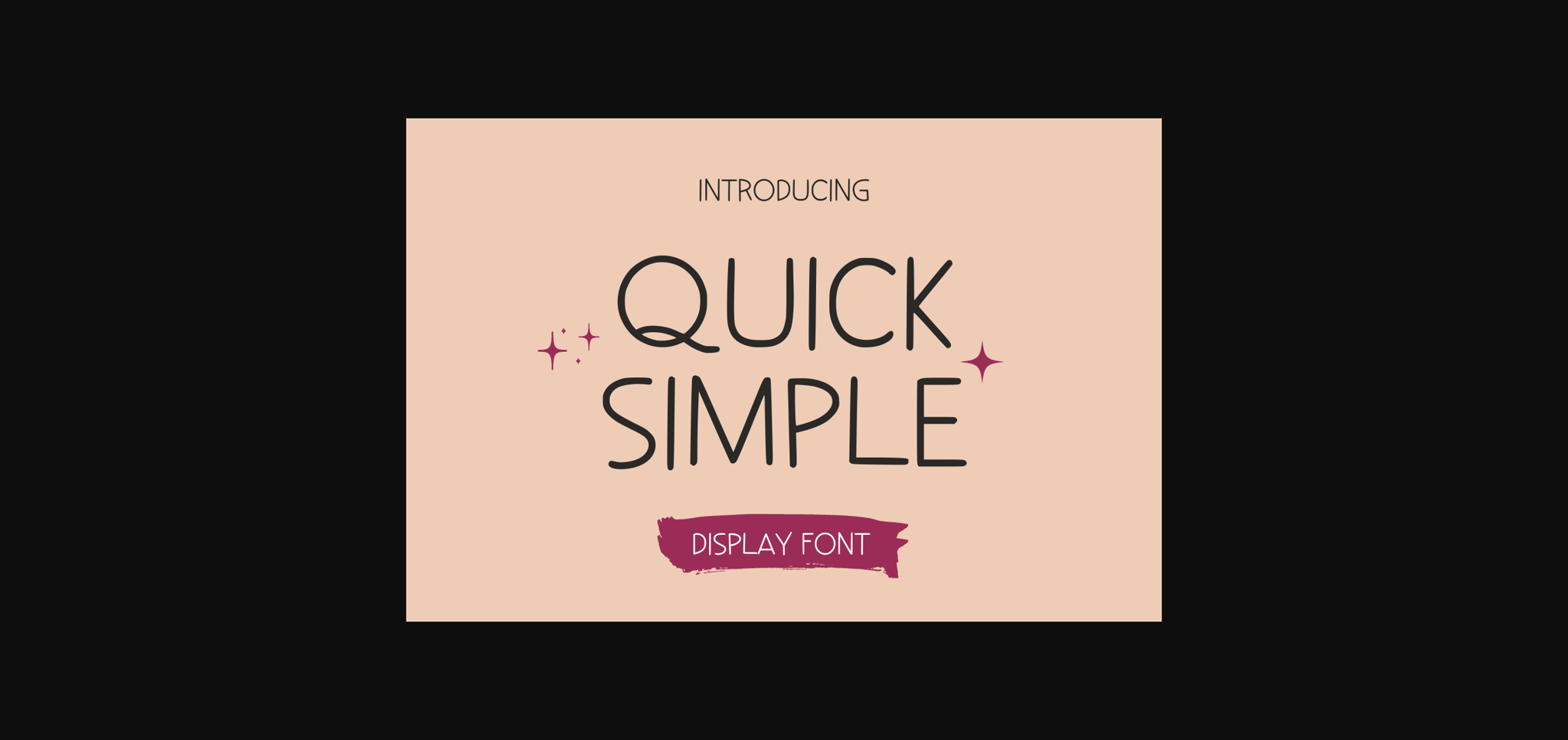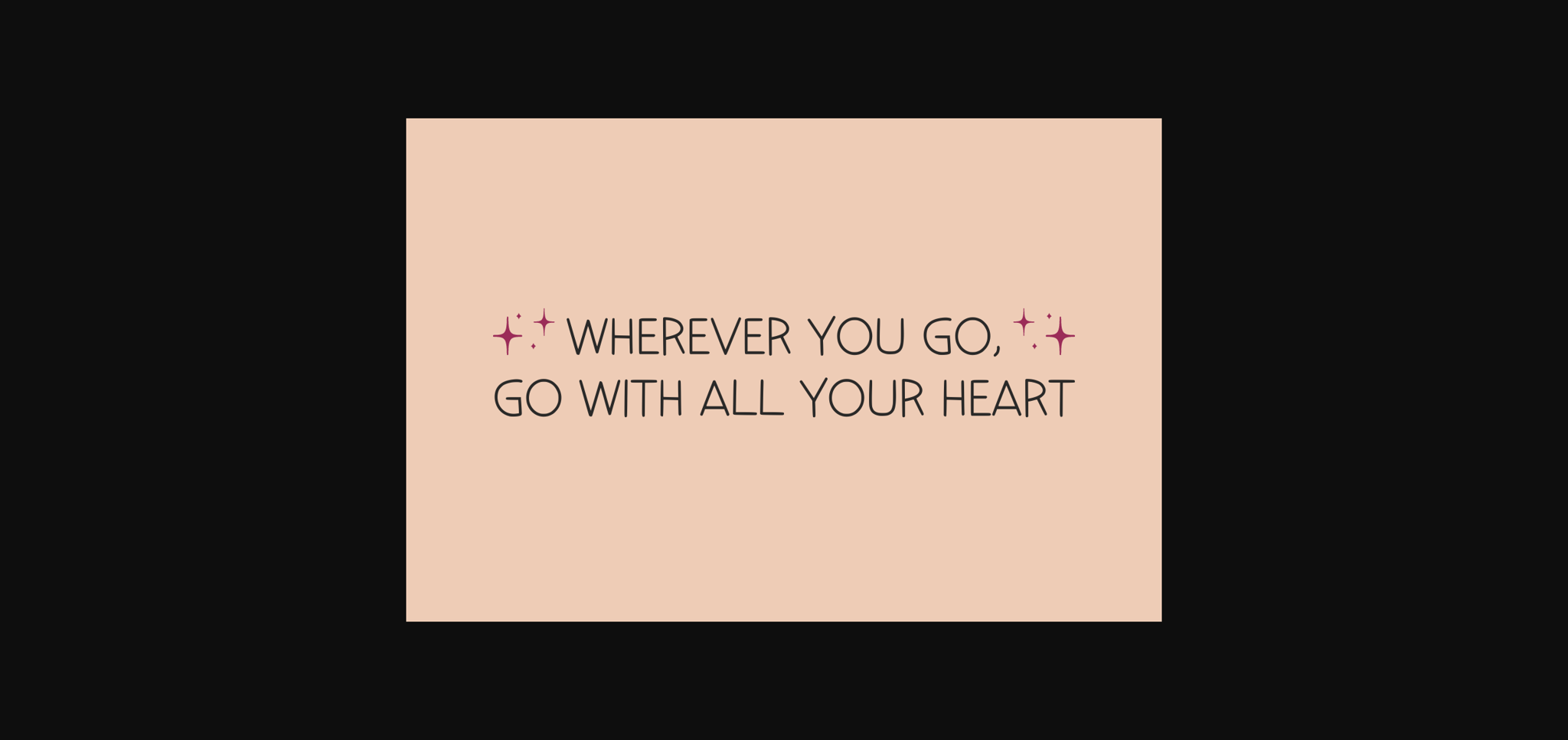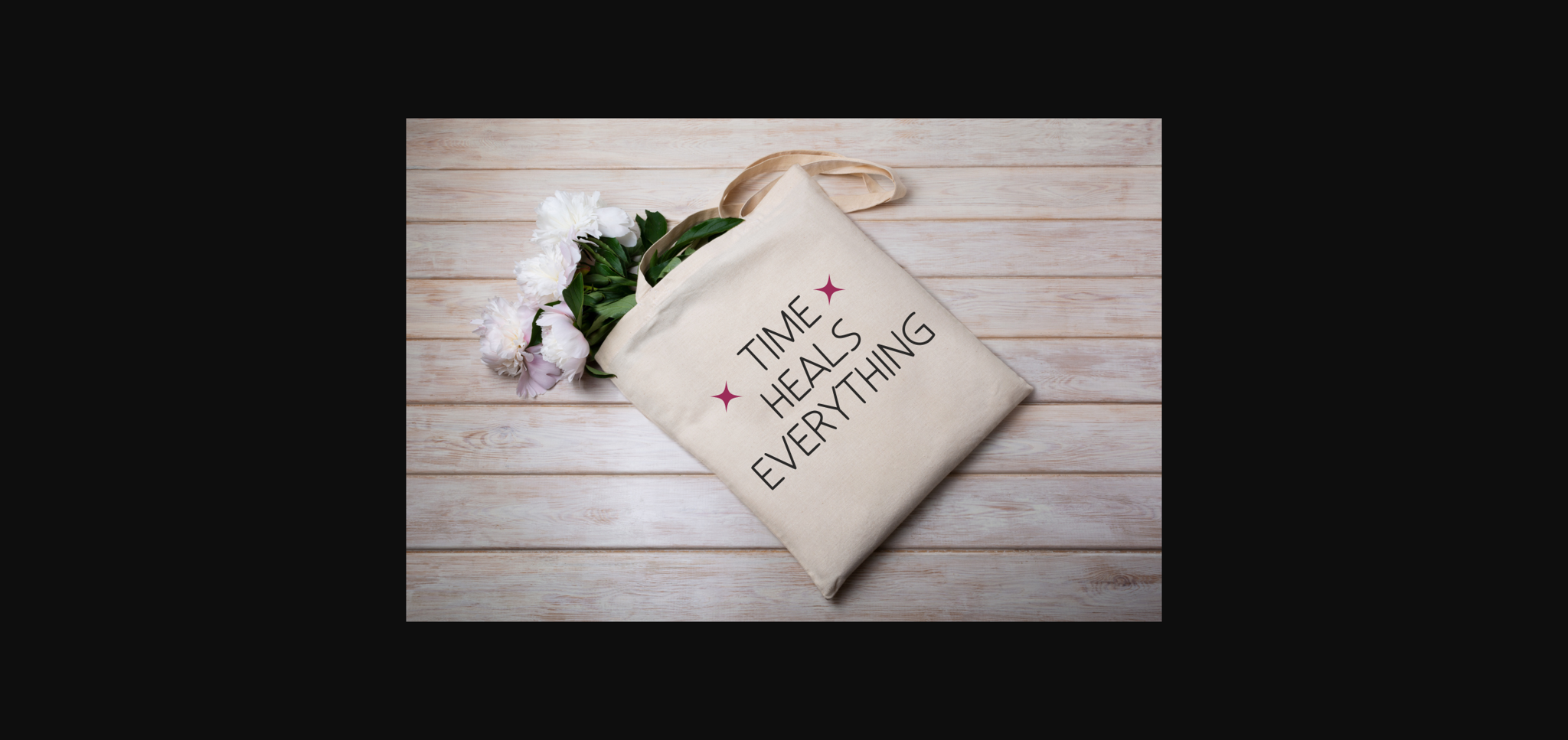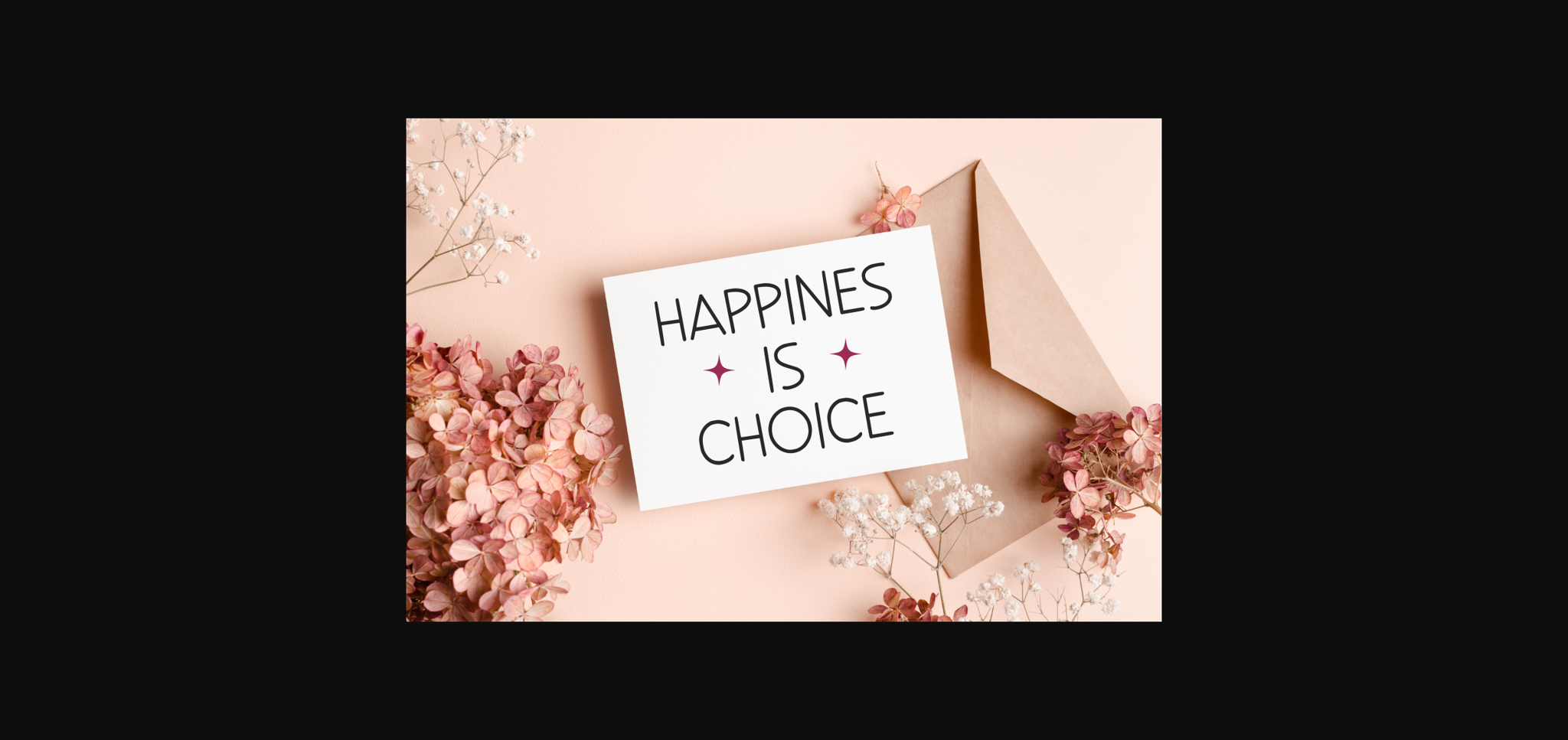
Quick Simple Font
About Quick Simple Font
Quick Simple is a cute and playful sans-serif font. Whatever the topic, this font is perfect for your creative craft needs!